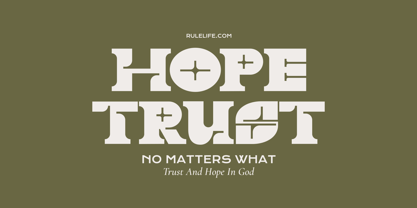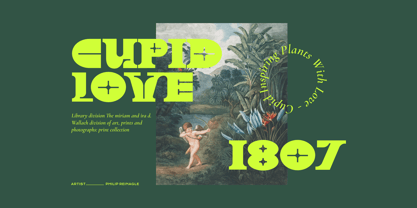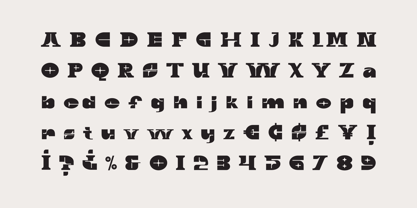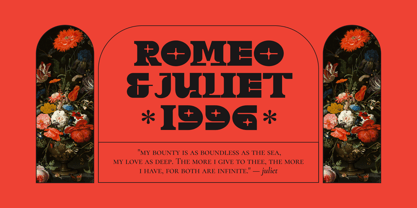
Big Koruc
by Imoodev
The Big Koruc Font Family was designed by Aulia Savira Putri and published by Imoodev. Big Koruc contains 1 styles. More about this family
Big Koruc is modern stencil font mixed with heavy modern brutalism energy. This font bold, geometric, and chopped-up like someone tried to laser-cut them while blindfolded. It works for posters, album covers, branding, editorial layouts, fashion brands, product packaging, art projects, merchandise, event promotions, and etc.
Designers: Aulia Savira Putri
Foundry: Imoodev